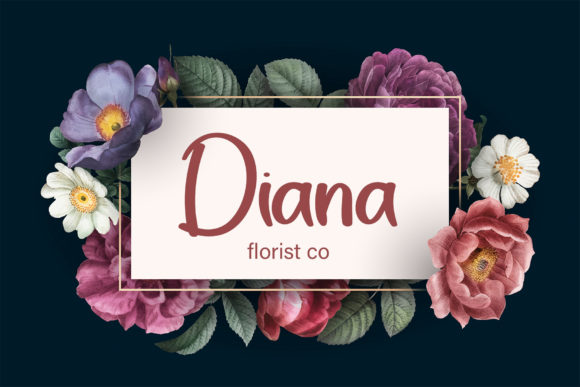
The Queen Font
db-ku.com - Script & Handwritten -- The Queen is a dainty, genuine and cursive handwritten font. This gentle font will look gorgeous on a variety of design ideas. It will add a romantic touch to each of your projects!